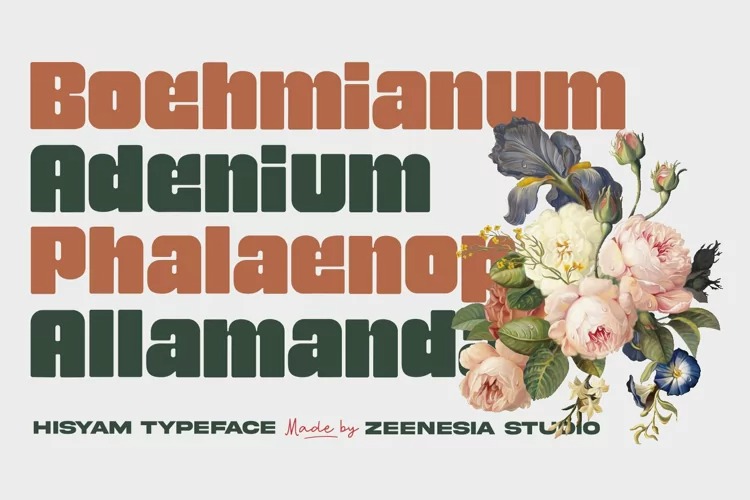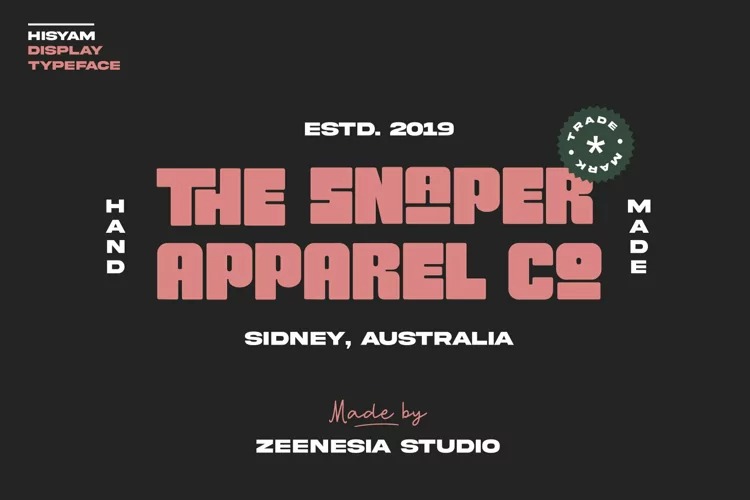
Hisyam Only Font
Hisyam Only Display Font
This is a bold sans font created by Zeenesia Std with strong character and soft features. This bold sans font will be the ideal choice for any cool project or great design you wish to develop. It’s a very versatile font that works great in large. Hisyam was built with open Type features, many stylistic alternate and Ligature makes your project will be awesome.